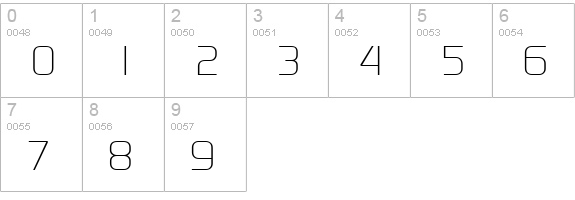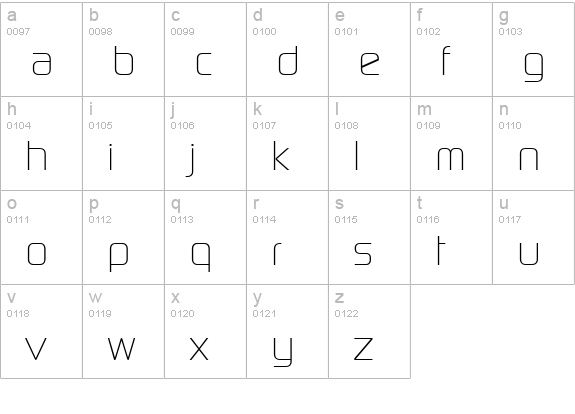
DigitalSerial-Regular is the standard, neutral variant in the DigitalSerial typeface family \xE2\x80\x94 well suited to general body text, paragraphs, and standard typographic work.
DigitalSerial-Regular is a modern and sleek font that combines the precision of digital aesthetics with a touch of classic elegance. Its clean lines and sharp edges make it perfect for a wide range of design projects, from digital interfaces to printed materials. This versatile font exudes professionalism and sophistication, making it an ideal choice for any designer looking to make a bold statement. The best part? DigitalSerial-Regular is available for free download at FontsMarket.com. Whether you're working on a branding project, website design, or any other creative endeavor, this font will add a touch of contemporary style and flair to your work. Don't miss out on the opportunity to enhance your designs with this high-quality, freely accessible font. Download DigitalSerial-Regular today and take your projects to the next level.